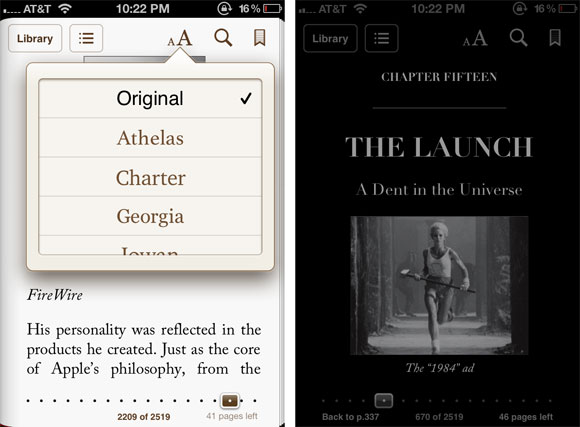
I'm really liking the new font Charter and I'm guessing the other fonts, especially Verdana, were dropped for licensing and cost related reasons.
Which of the new fonts is your favourite?
I'm really liking the new font Charter and I'm guessing the other fonts, especially Verdana, were dropped for licensing and cost related reasons.
Which of the new fonts is your favourite?
My problem with the new font set is that none of them seem to be true sans serif, like Verdana. I probably wouldn't mind if I hadn't got used to Verdana, but it was so clean and easy to read. Any other font feels less than optimal to me, now. :(
Seravek looks very Verdanaesque to me
It just feels weirdly "curly" to me. For instance, lower case "l" has a curl at the bottom instead of being a straight vertical line. Also, I think Verdana letters are overall a bit wider.
Not that I ever thought of such things before, but isn't it just weird how all these small details add up to affect my reading experience?
I think you kinda missed the point here. Night reading is for those who want to read in bed without turning on the lights. Usually, they go for this option because they don't want to disturb the person with whom they are sharing the bed--a boon for insomniacs. But it'd be very good for reading scary stories aloud around the campfire as well :p
Between this and future retina displays (Fingers crossed) I think that leaves exactly 1 situation left where e ink makes sense. All other situations have been locked up tight.
That one situation is when you are reading for more than 15 minutes.
Other ebook apps had a night mode long before the Kindle app arrived on the app store.
I never said Amazon invented it. I said if Apple had implemented it first, Amazon would be attacked as a copycat for implementing it as well.
Love the downvotes for pointing out the truth, too.
You can. Well there's no computer version of iBooks yet, and an Android version is out of the question, but if you have multiple iDevices, make sure they are all signed into the same iTunes account, and then go to Settings > iBooks, and turn on bookmark syncing. Your notes sync along with your bookmarks.
I meant syncing between a Kindle e-reader (NOT the iPhone app) and iBooks. Kindle uses mobi/azw whereas iBooks uses ePub, so totally different formats.
Having a problem with iBooks
All my books are in PDF form and I can't seem to use all the new features in iBooks on the PDF books is there a reason why .
* App-specific setting for orientation lock.